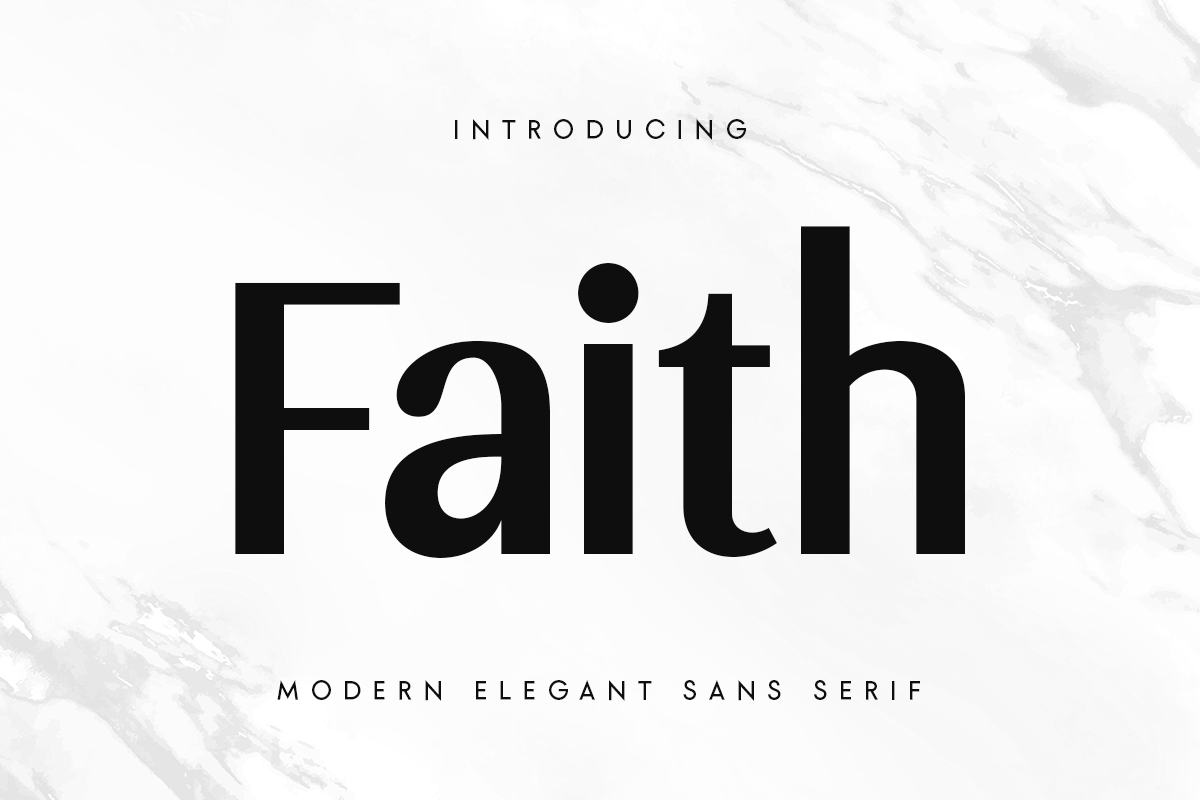
Faith
-Modern Elegant Sans Serif
Faith
An elegant sans serif font with extra perfect modern style, ready for any branding needs will be ready to add value of your brand. It so nice to leverage designer or product owner that need solutions to make their design look more elegant and modern. And specially for Faith font, We prepared any elegant characters to help you create unlimited variations for your creative needs.